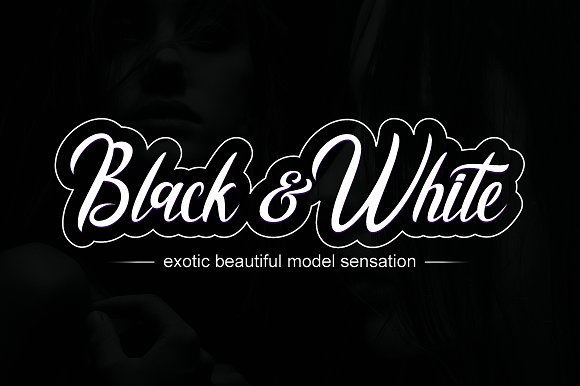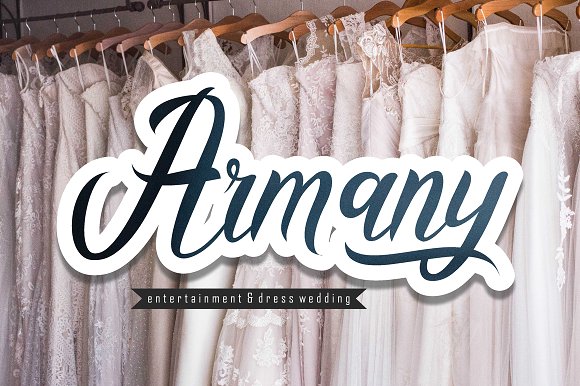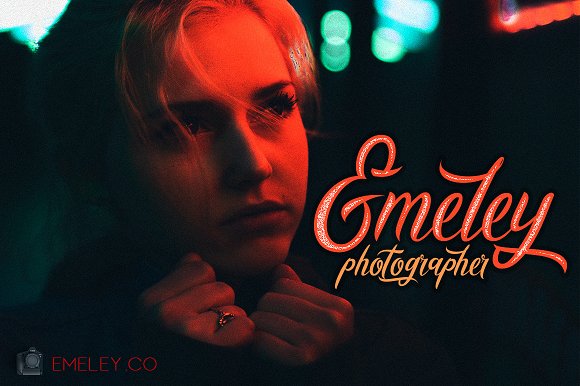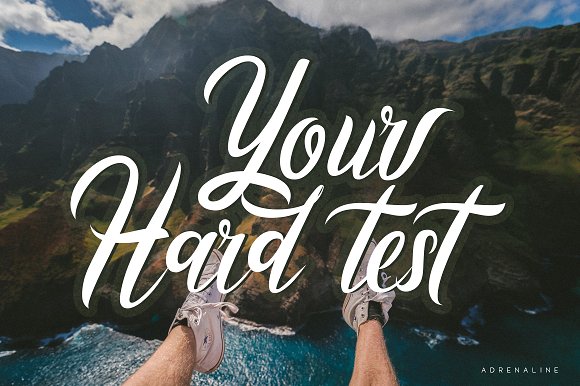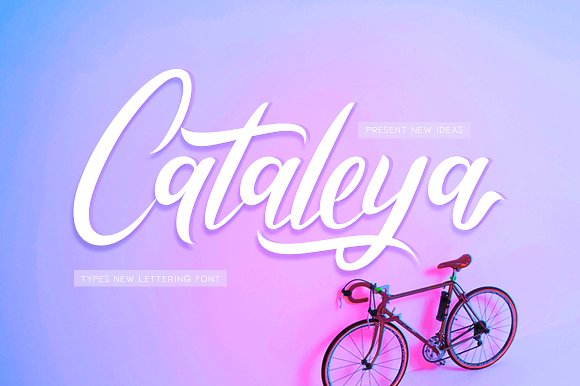
Cataleya Calligraphy Font
Hello world! This is a very special script type, it is bold and brush style. Introducing Cataleya Font. Cataleya “is a maodern font, every letter script has been carefully crafted to make your text look beautiful with an elongated connection model. With a modern script style this font will be perfect for various projects, for example: weddings, invitations, greeting cards, posters, business cards, quotes, blog headers, branding, logos, fashion, clothing, letters, stationery, quotes. newsletter